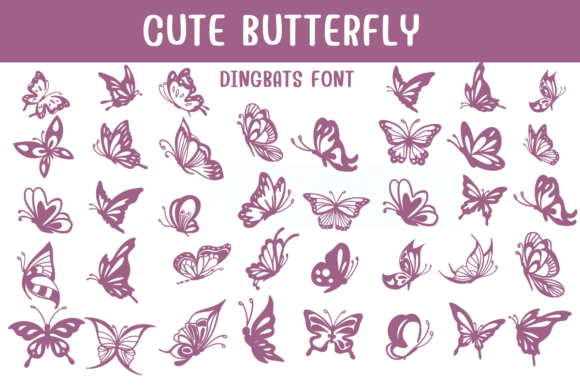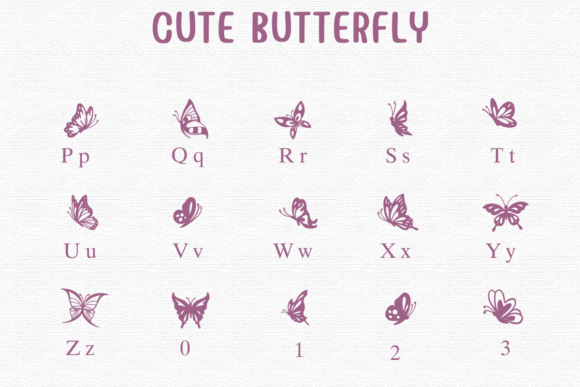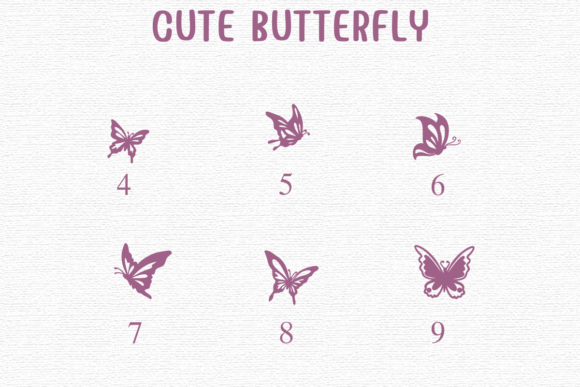
Cute Butterfly Font
About the Cute Butterfly Font
Crafted with precision, the Cute Butterfly Font is ready to bring your ideas to life. Cute Butterfly is an organic and beautiful dingbats font, featuring lovely ornaments. No matter the topic, this font will be an incredible asset to your fonts’ library, as it has the potential to elevate any creation.
Cute Butterfly excels in projects requiring a whimsical and delicate touch. Ideal applications include children’s books, wedding stationery, feminine branding, and packaging for beauty or confectionery products. Its decorative nature makes it perfect for short headlines, accents within layouts, or as a design element on logos and social media graphics. Avoid using it for body text or lengthy passages; its ornate style is best suited for impactful visual flourishes, not extended readability.
Pairing Cute Butterfly effectively requires considering contrast. A clean, modern sans-serif like Montserrat or Lato will provide a strong counterpoint, creating balance and preventing visual clutter. For a more playful approach, a rounded sans-serif such as Bubblegum Sans could enhance the font’s inherent charm. Alternatively, a classic serif like Garamond might add a touch of sophistication, grounding the whimsicality of the dingbats.
The font’s overall personality is undeniably playful and charming, conveying a sense of lightheartedness and femininity. Its organic forms and decorative elements make it a versatile tool for enhancing designs that require a touch of delicate elegance or whimsical charm.
Cute Butterfly Font Usage Examples
Cute Butterfly Font Example